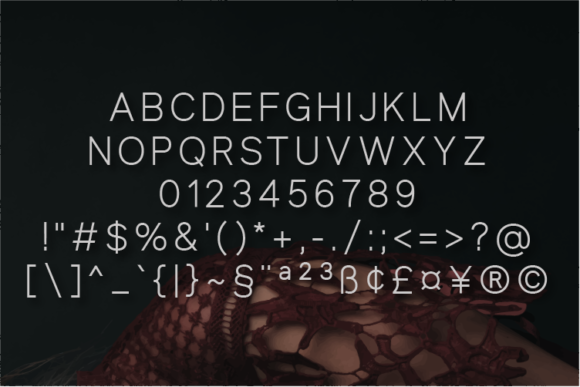
Introduction to Colbey Medium Font
Colbey Medium is an elegant contemporary sans serif font with soft edges.
It was designed with a clean and stylized geometry and a harmonious appearance for both texts and headlines This font is a great choice for branding, logos, web design and so much more.
Key Features of Colbey Medium Font